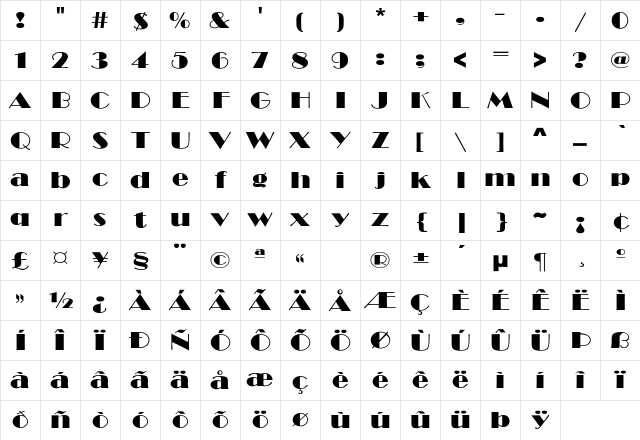
RockSide ExtraThick Regular
Design Context for RockSide ExtraThick
RockSide ExtraThick is a composed and adaptable typeface that performs quietly and consistently across a wide range of design contexts.
Pro Tip: Use RockSide ExtraThick in both headline and body roles to test its range before committing to a single application.